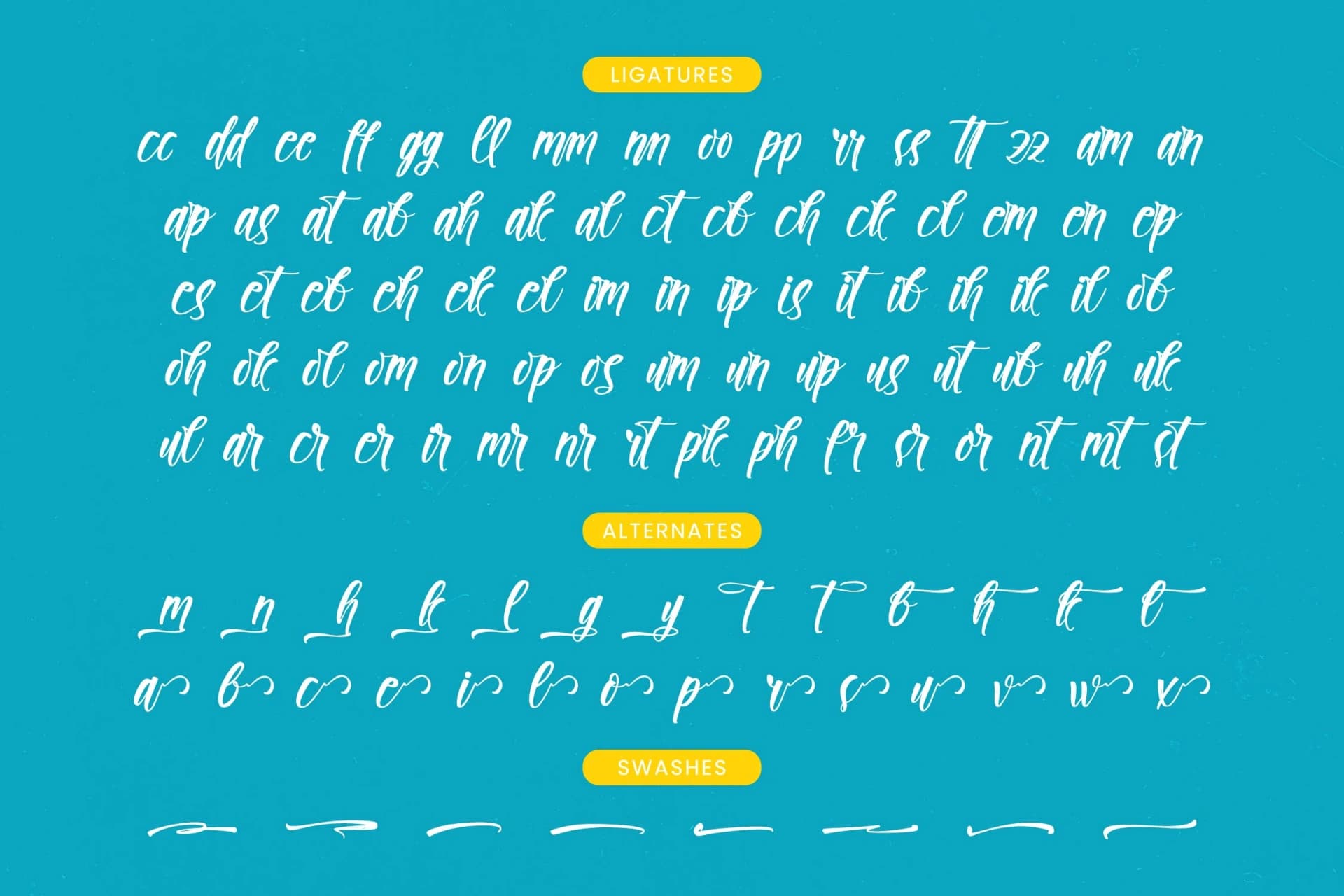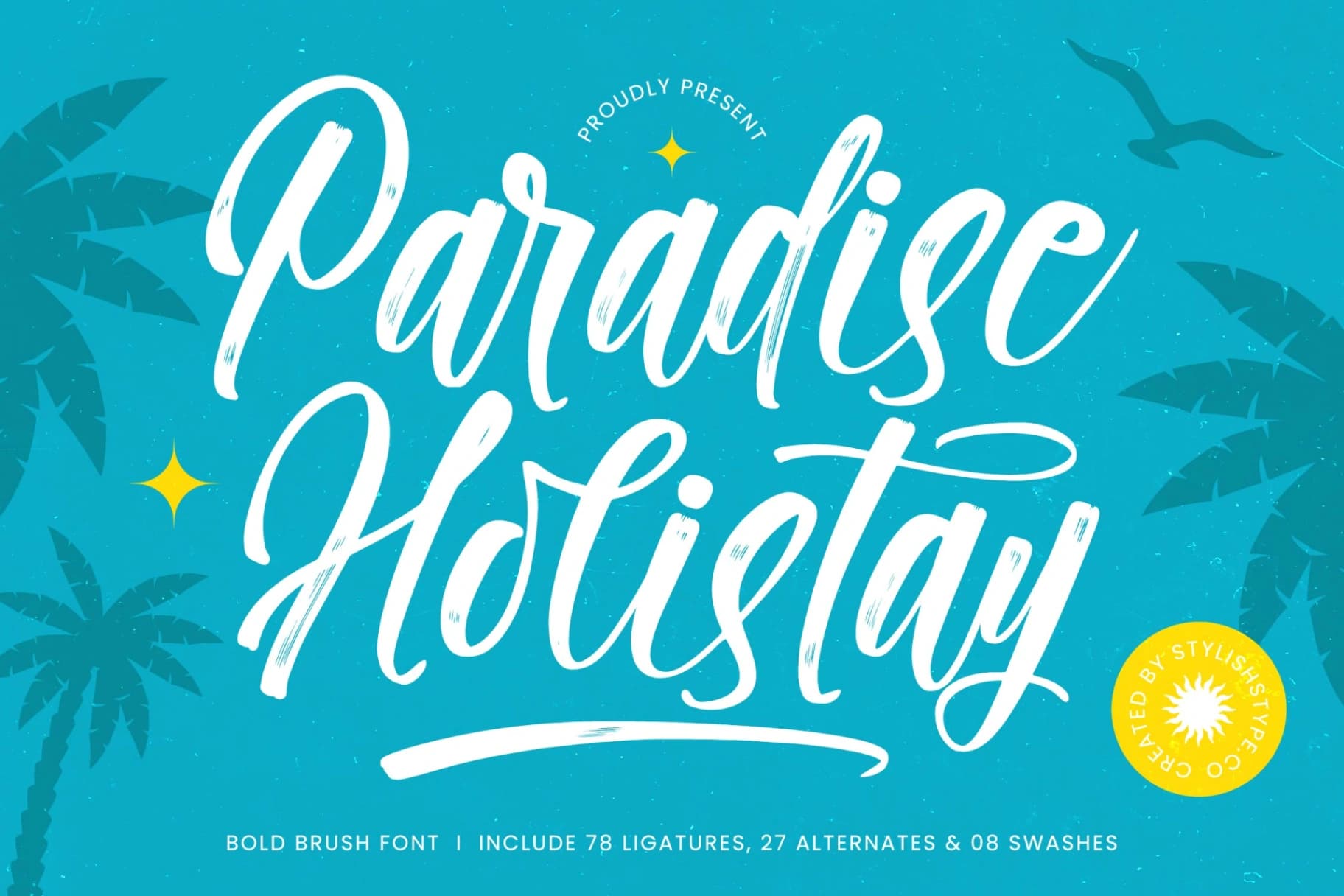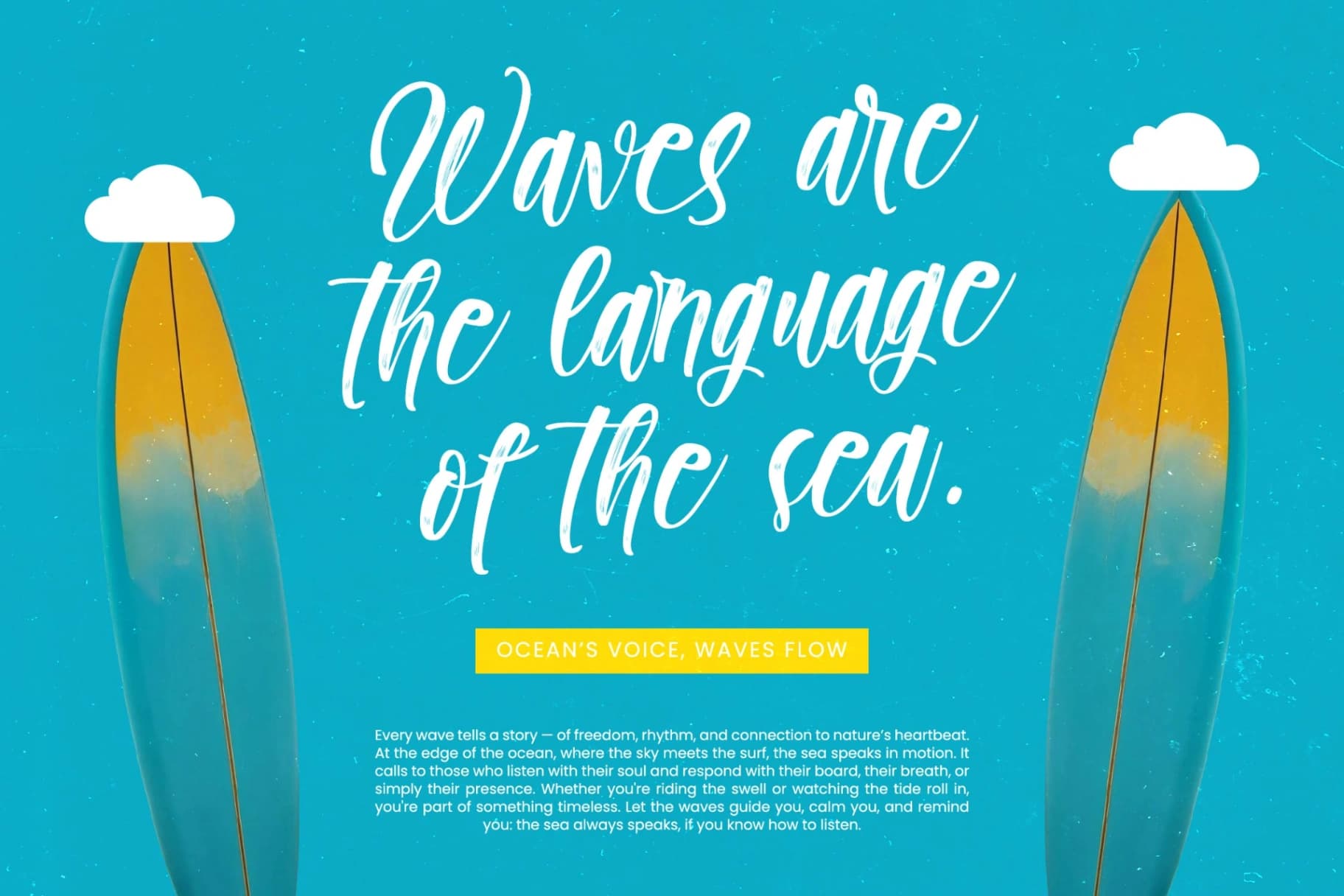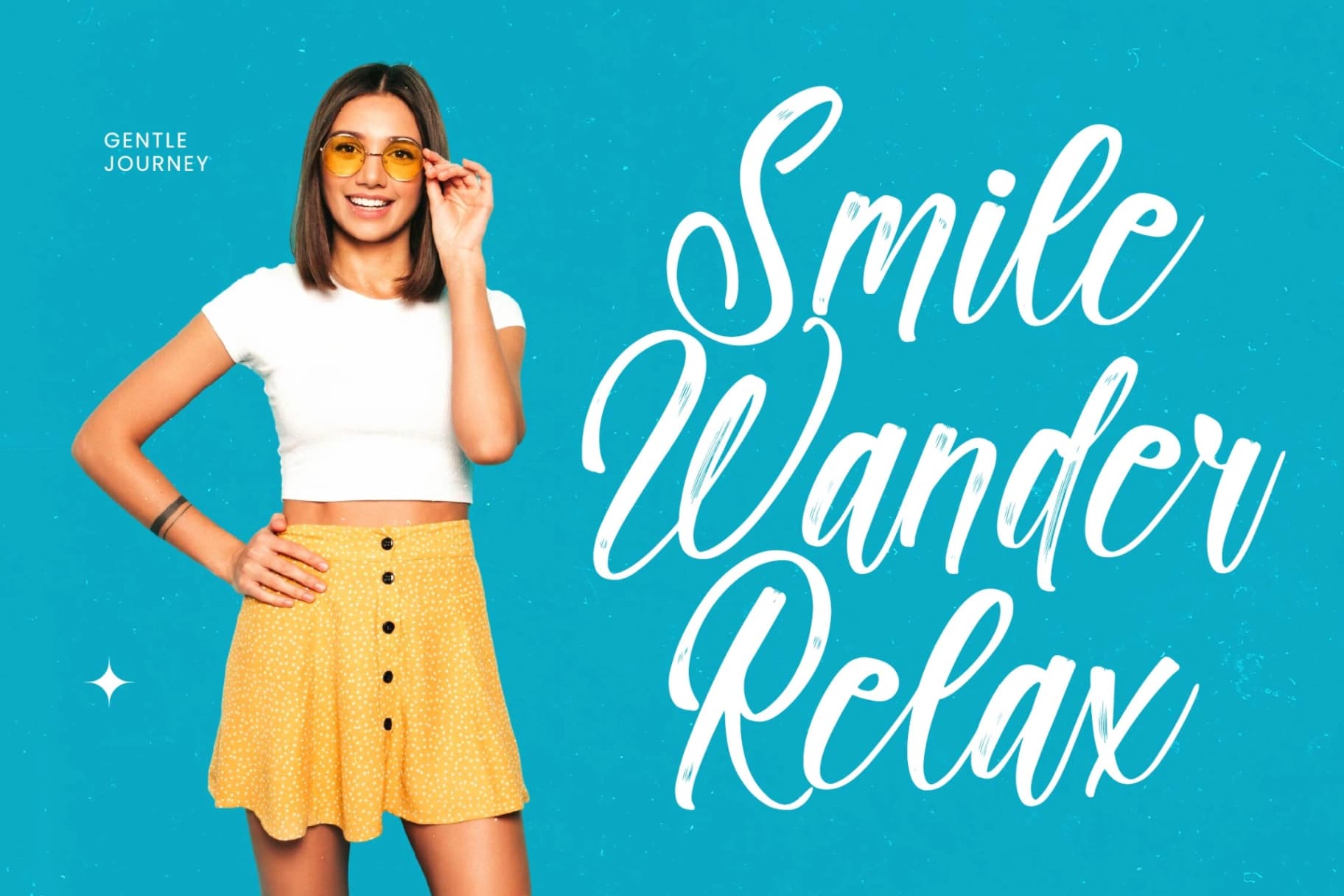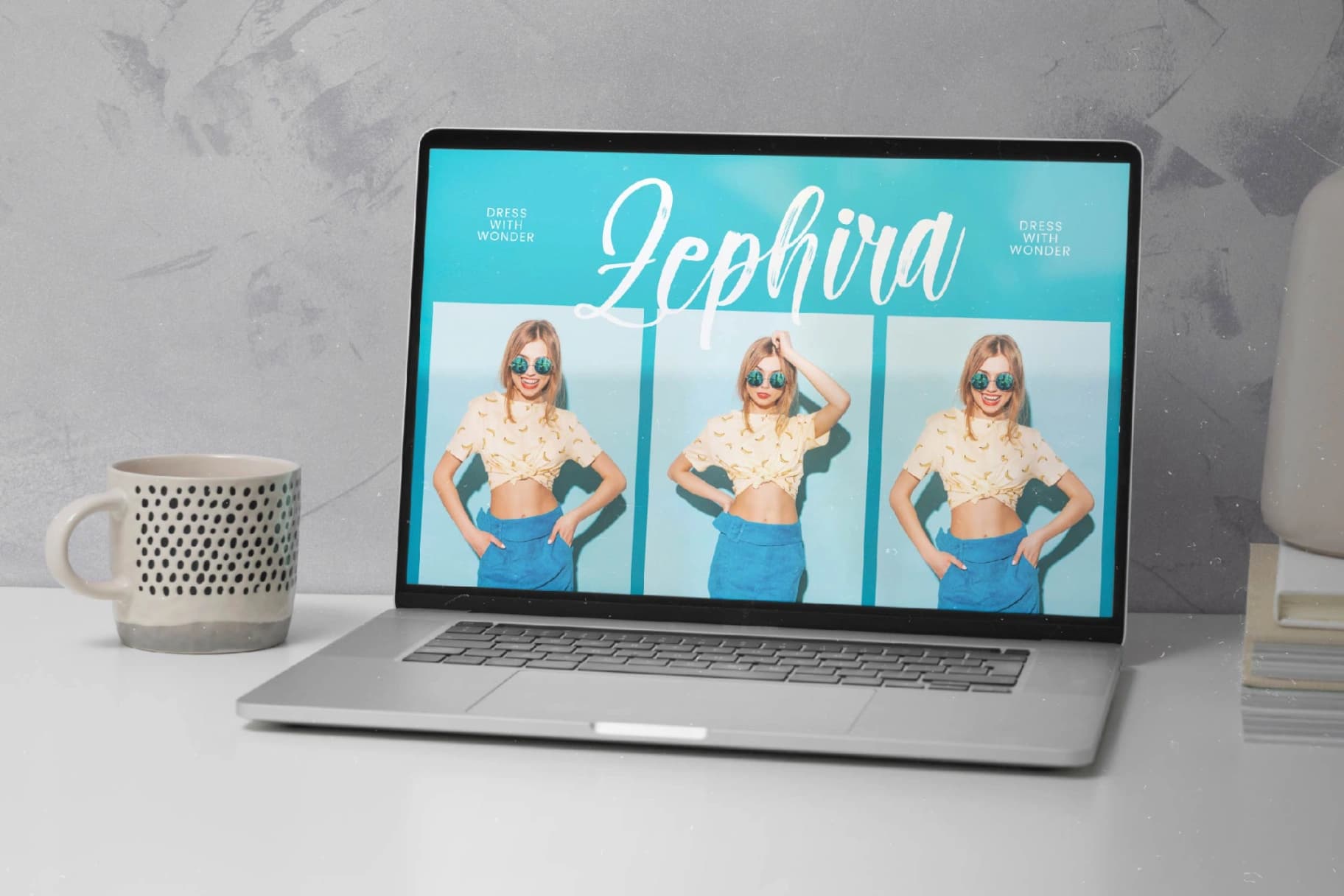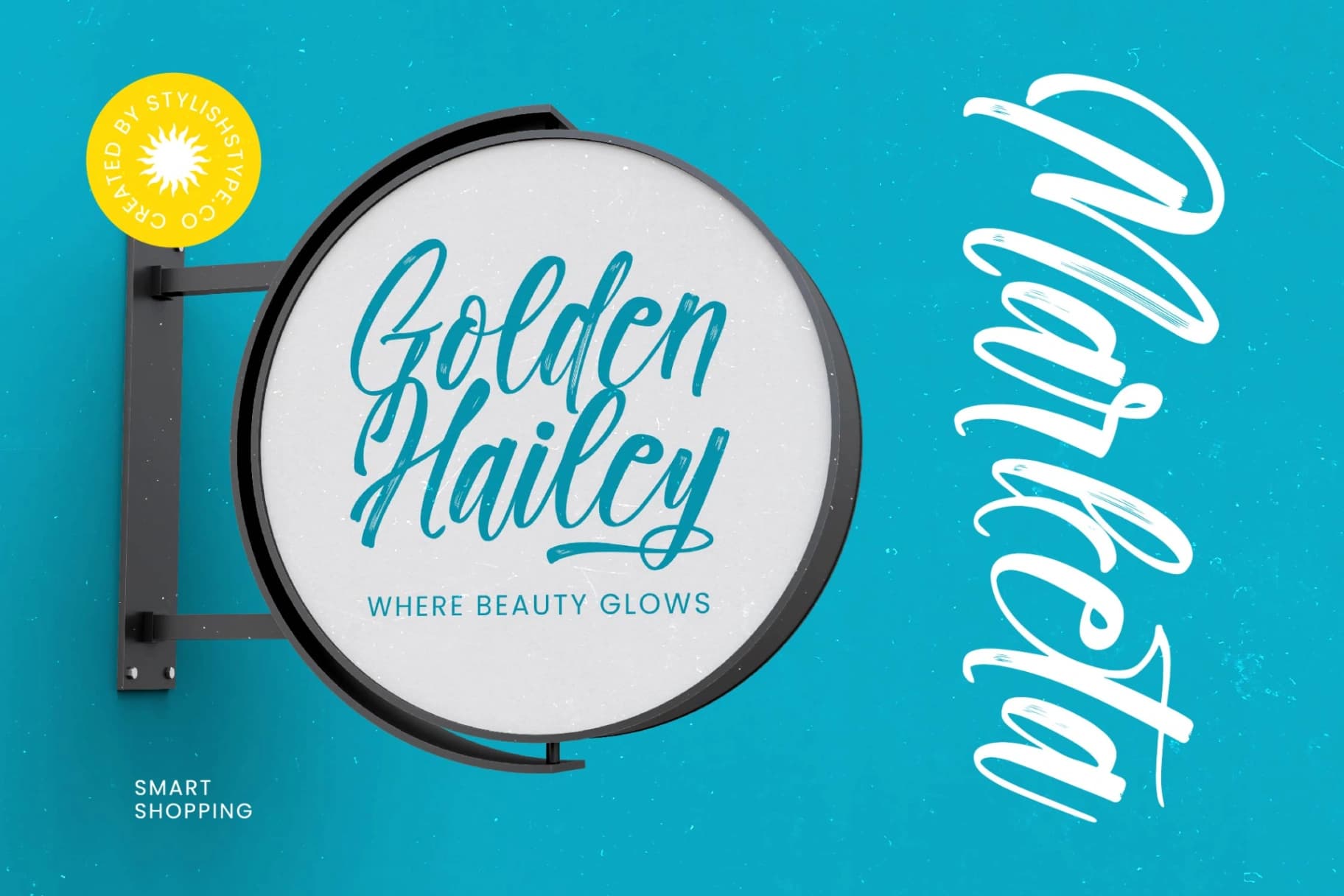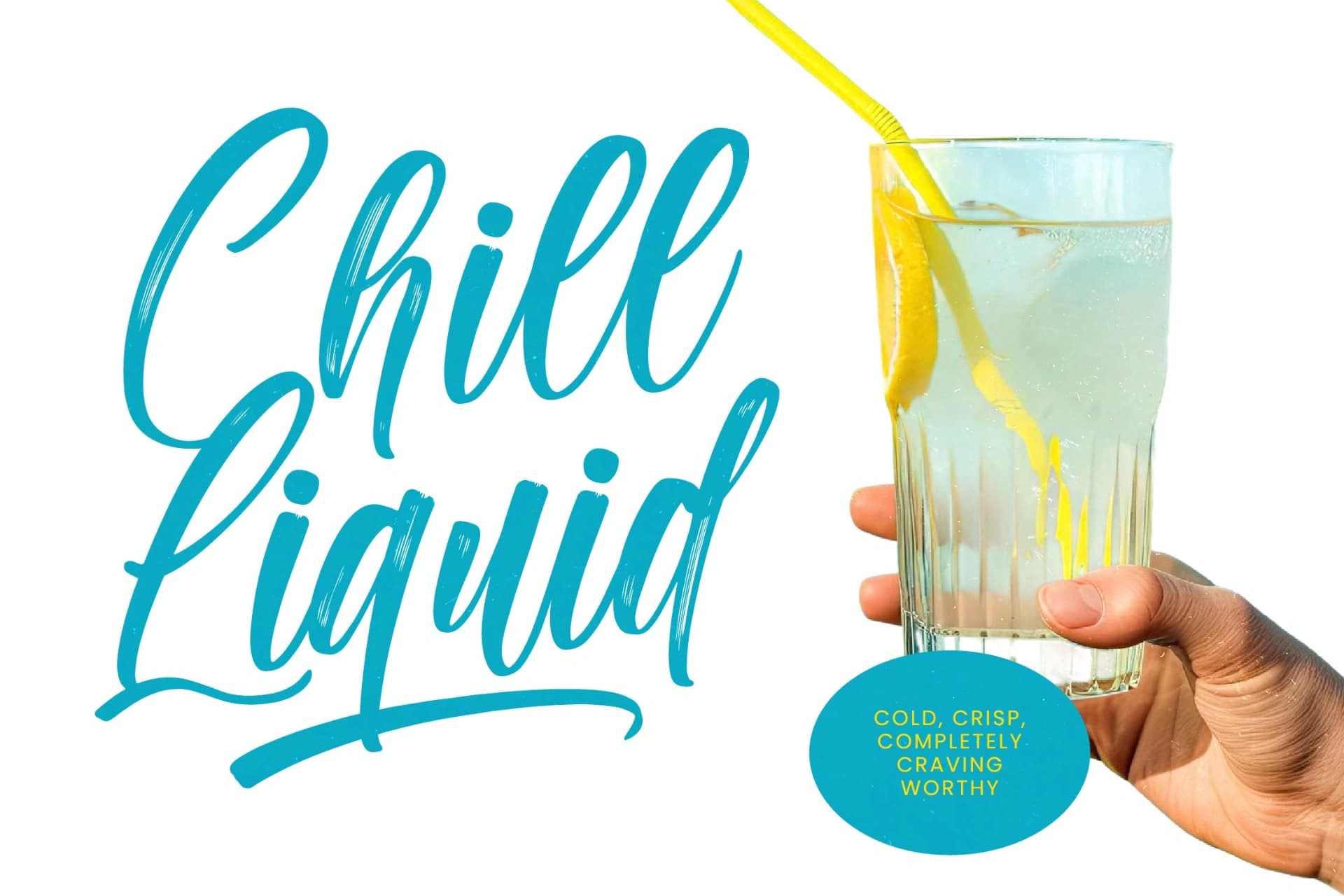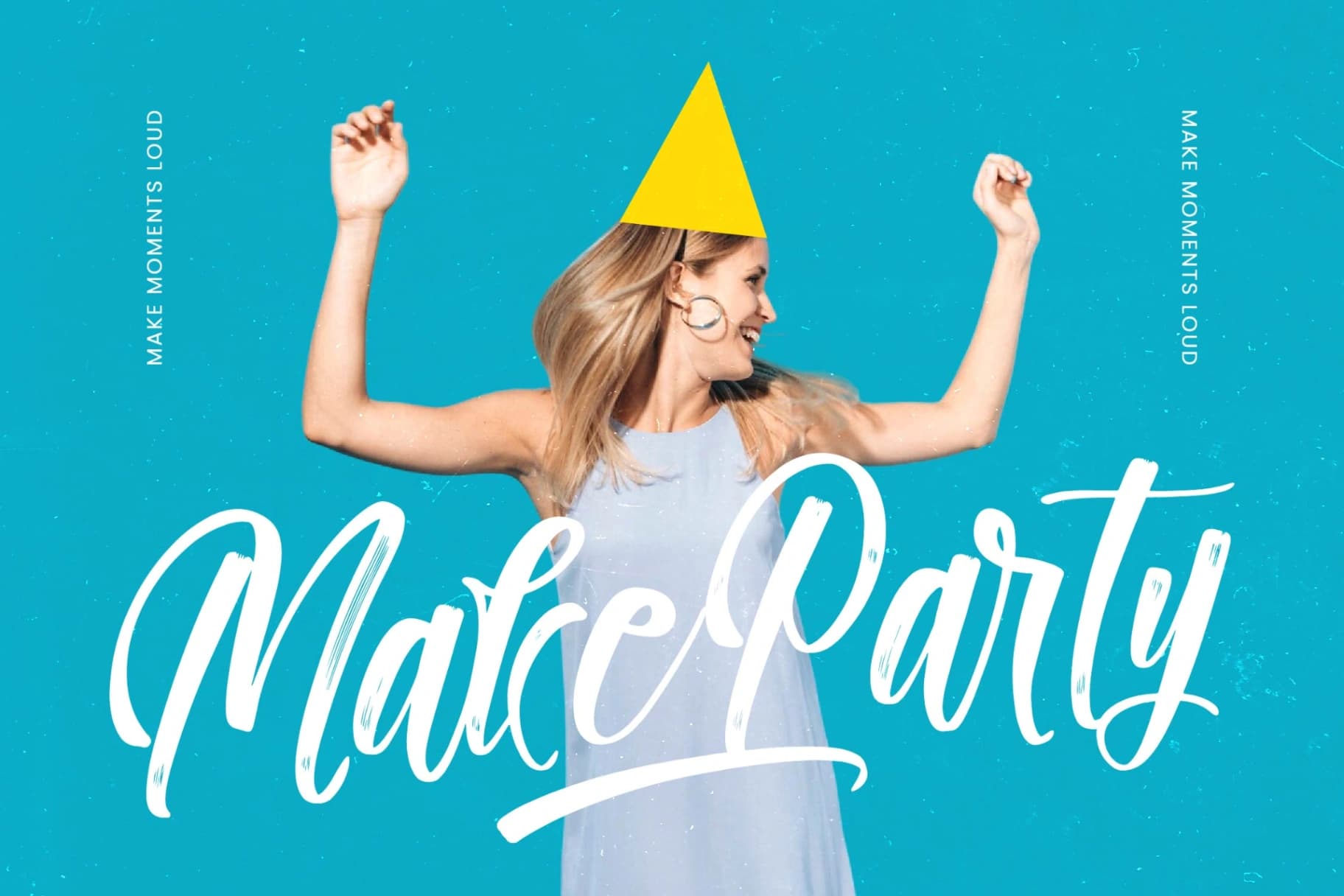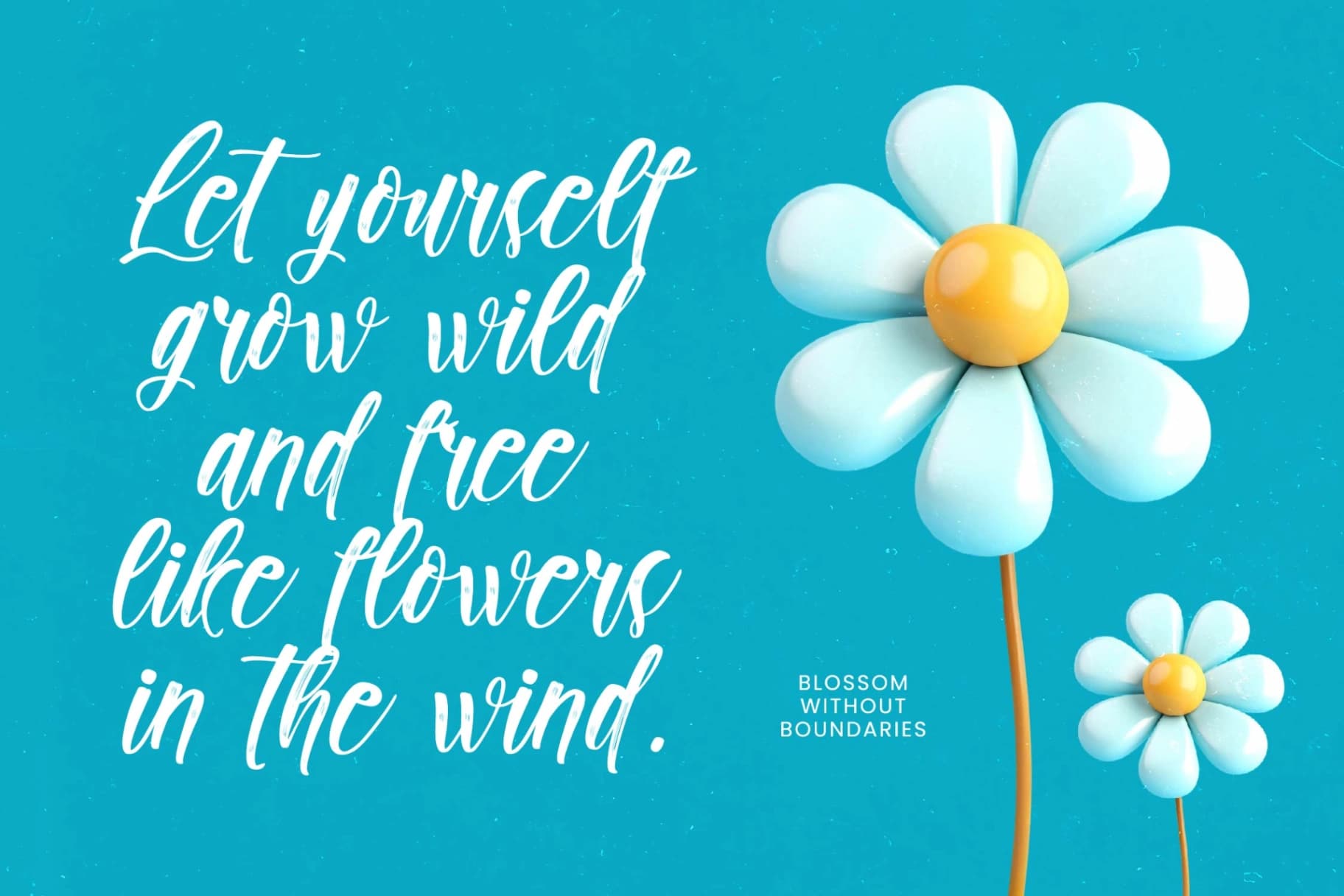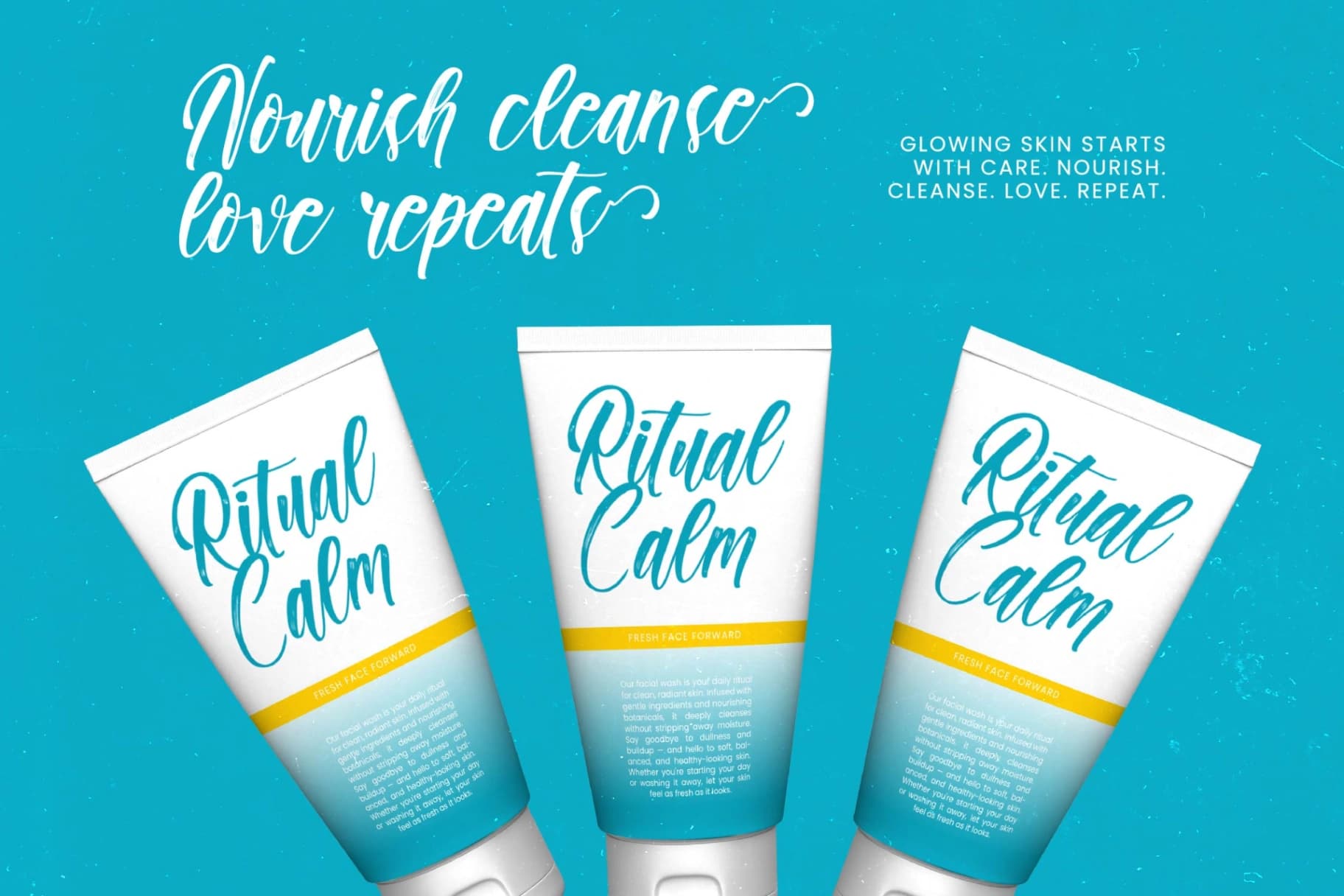
Paradise Holistay - Bold Brush Font
Capture attention instantly with Font Paradise Holistay - Bold Brush Font Script, a truly captivating typeface that embodies the spirit of freedom and creativity. This bold brush script delivers an authentic, hand-crafted aesthetic with a vibrant, energetic flow. Each stroke pulsates with a unique character, ensuring your designs radiate genuine warmth and expressive typography, perfect for conveying a playful yet professional message.
Unleash unparalleled creative control with Font Paradise Holistay - Bold Brush Font Script, featuring an impressive array of 78 ligatures, 27 alternates, and 8 swashes. These rich typographic features empower designers to customize text with seamless fluidity and dynamic flair, transforming ordinary copy into extraordinary visual art. With its extensive multilingual support, Font Paradise Holistay - Bold Brush Font Script adapts seamlessly across global markets, making it incredibly versatile for international projects.
Elevate your projects to new heights with the distinctive charm of Font Paradise Holistay - Bold Brush Font Script. It's the perfect choice for creating memorable luxury branding, eye-catching packaging, and engaging social media content that stands out. Ideal for resort marketing, travel blogs, artisan product labels, editorial design, and personalized invitations, this font ensures your message is delivered with undeniable impact and an appealing, relaxed elegance.